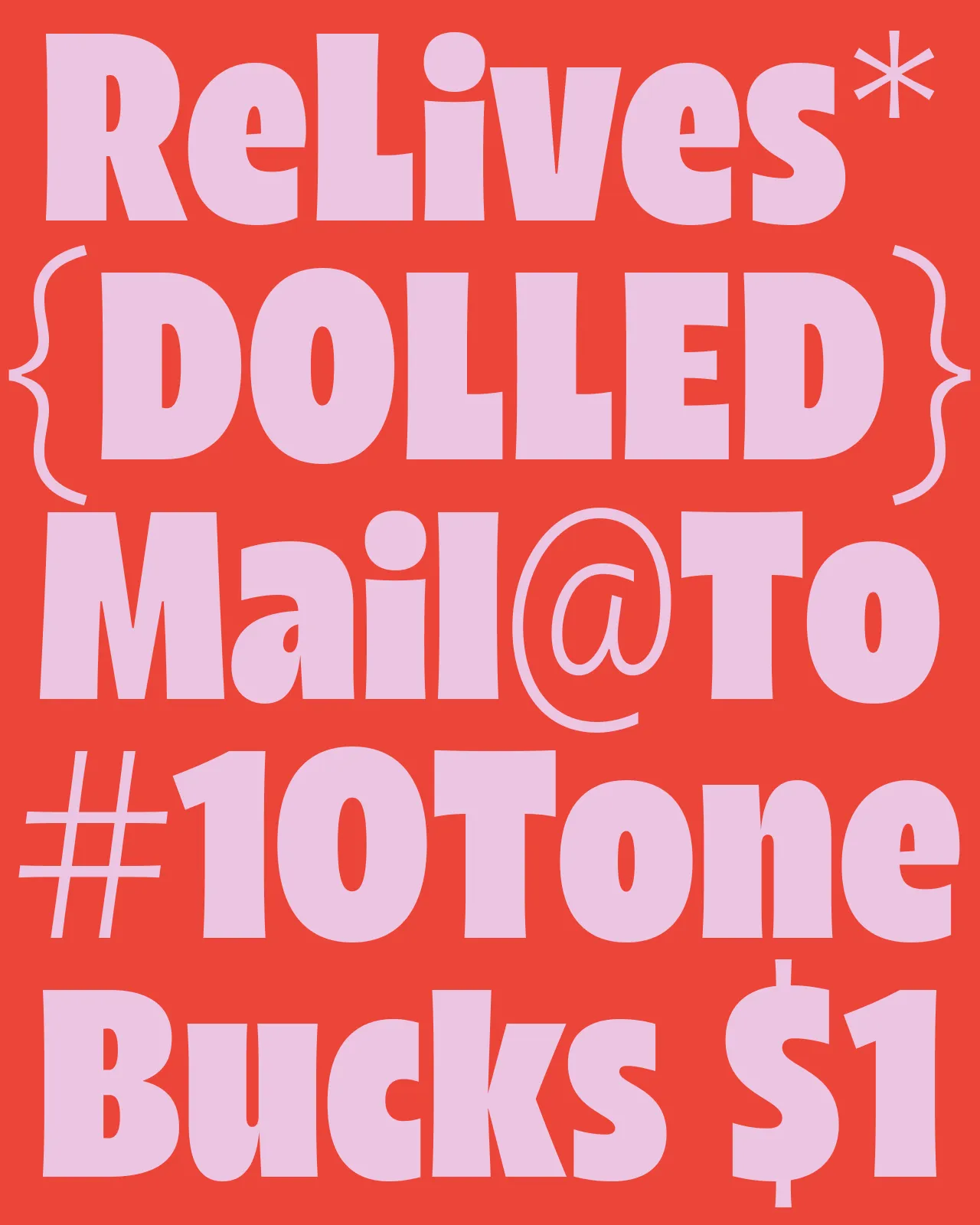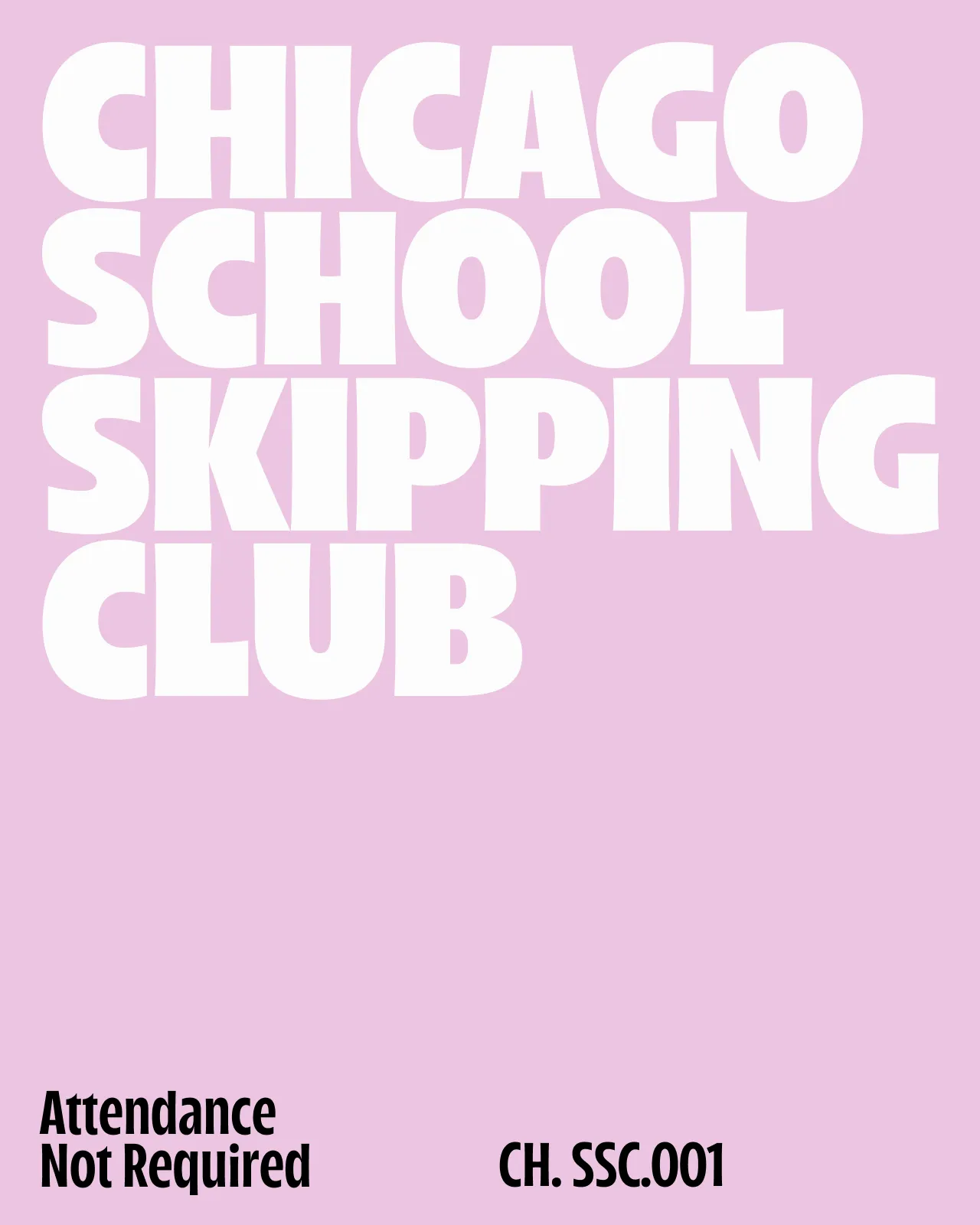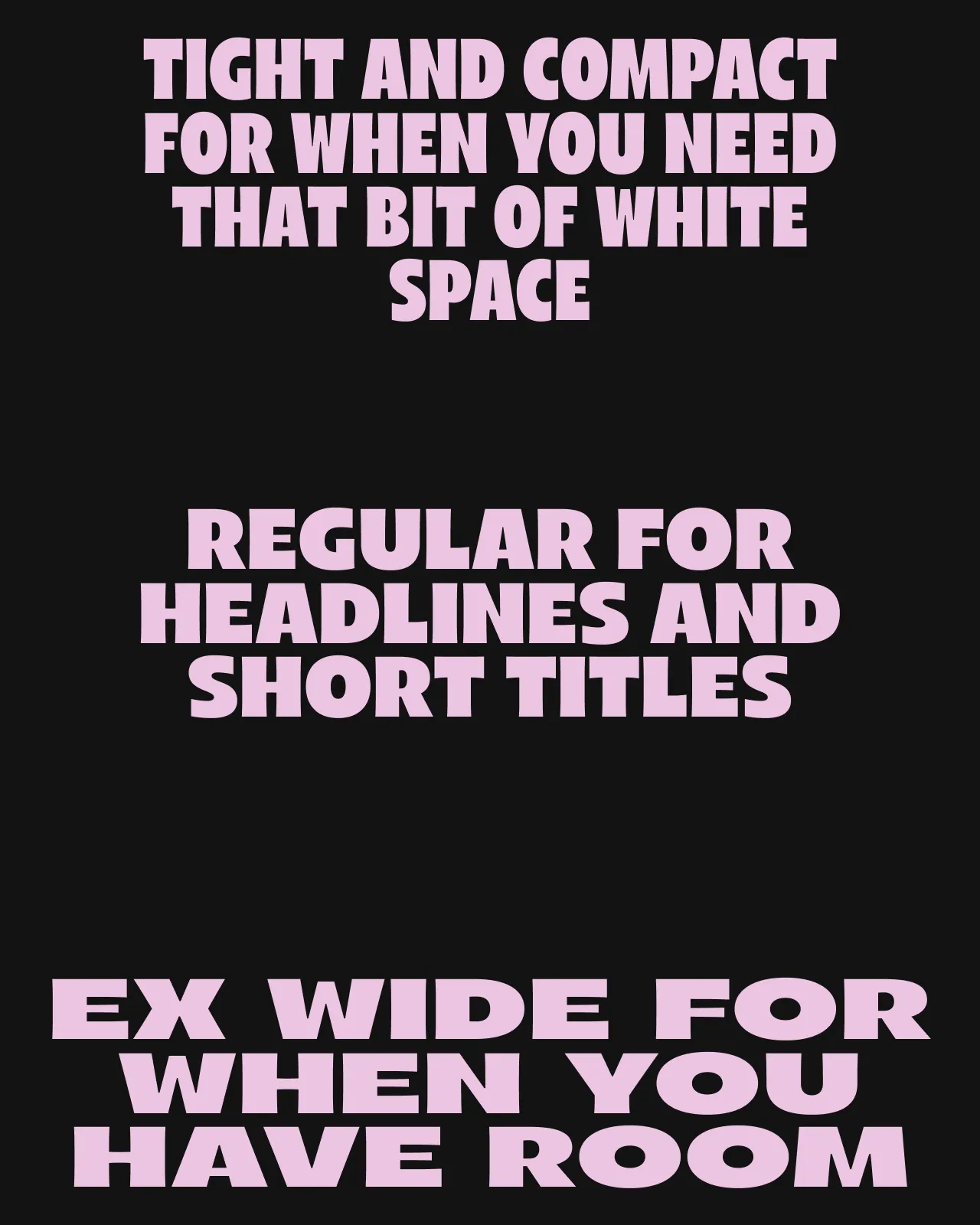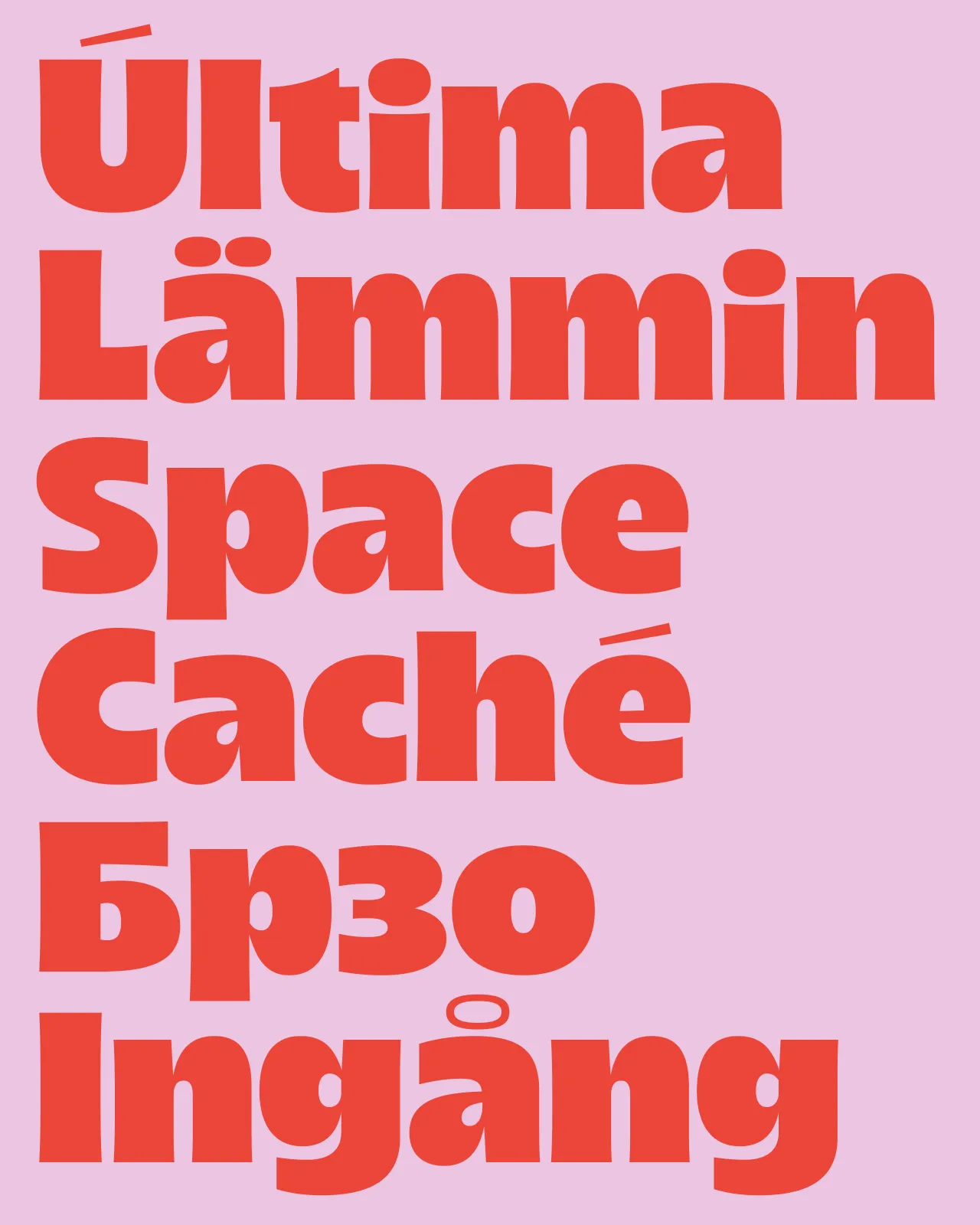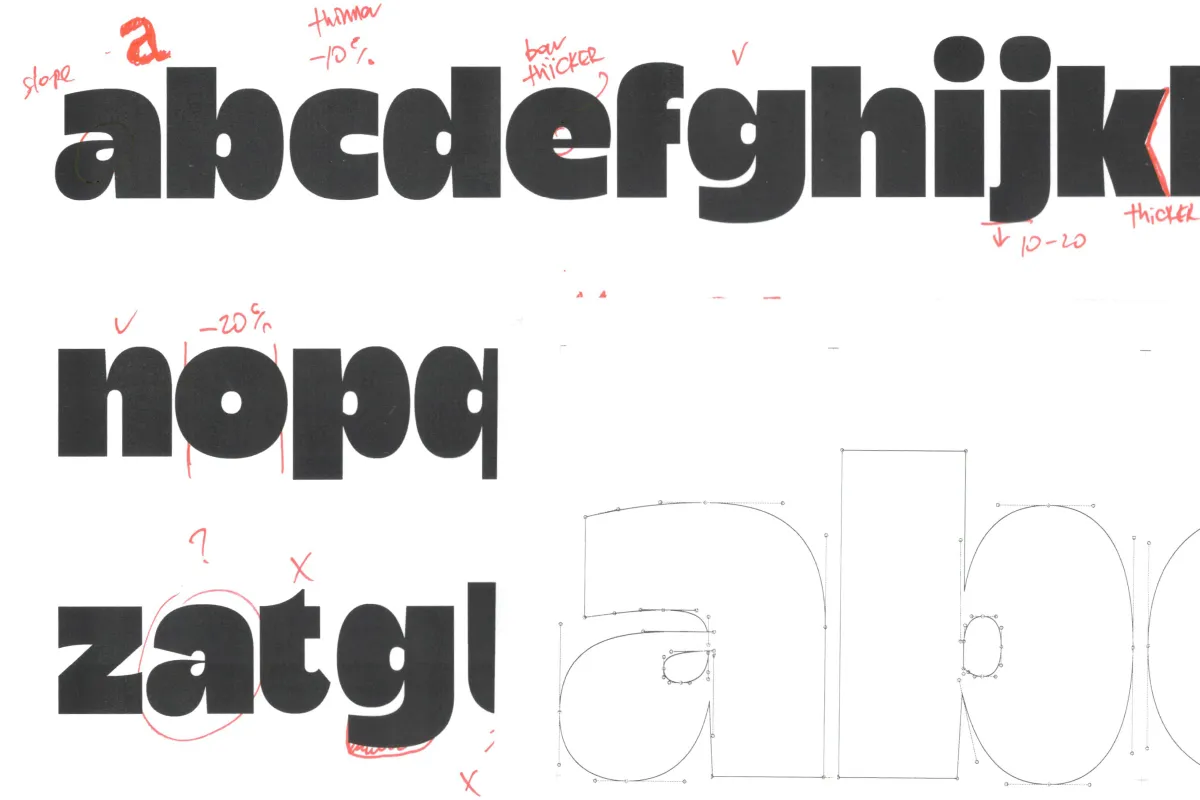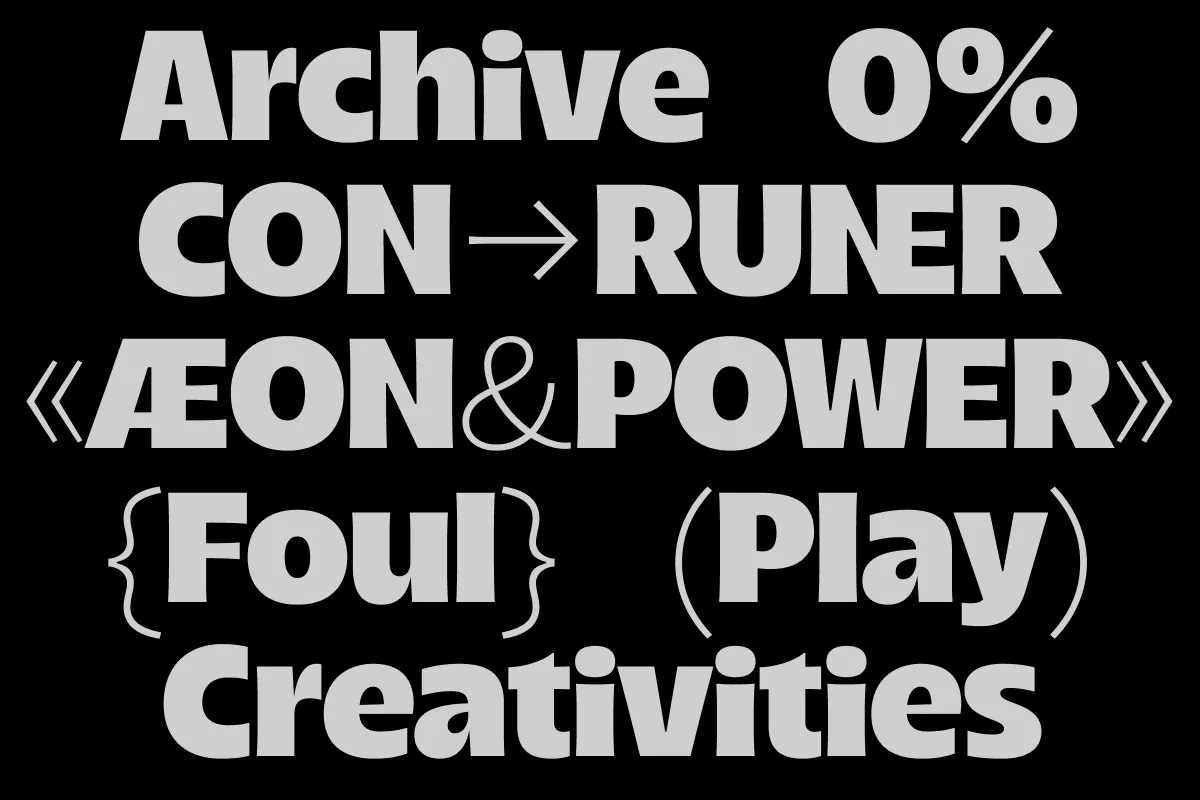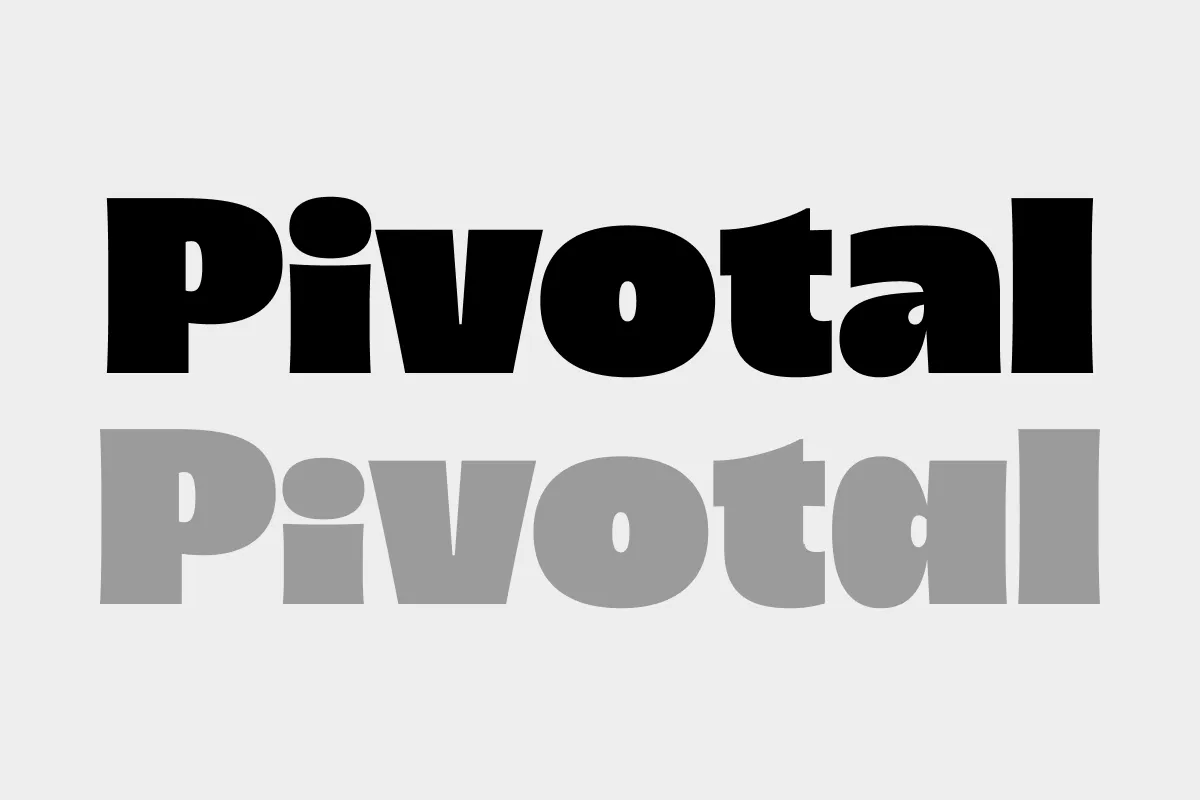
Arlen
Meet Arlen, a funky, variable sans serif type family in 36 styles. Inspired by 20th-century hand-painted signs and the visual culture of the 1980s, Arlen adds a little extra flair to this already charismatic mix. Arlen is a display font that can be freely used for larger bodies of text. Among its most prominent visual features are high contrast, flaring stems, and dynamic letterforms. With 36 styles on board, Arlen includes both narrow and wide font styles, as well as a Weight and Width variable font that adapts to your design needs.
With 950+ characters in each font, Arlen supports most Latin and Cyrillic based languages and offers a wide range of extra characters, symbols, alternate glyphs, ligatures, and punctuation marks. Further expanding its scope of applications, some letters and characters come in two versions: thin and bold, which can be easily alternated using a corresponding stylistic set.
Arlen is a cheerful friendly font that conveys kindness, good cheer, and positive vibes. It feels right at home in both digital and print mediums. Whether used in advertising, editorial design, social media, web design, packaging, or personal design projects, Arlen’s versatility shines. With versatility at its heart, Arlen is the perfect typeface for large design systems that require multiple styles for typesetting.
Designers
Eugene Tantsurin, Anna Remm